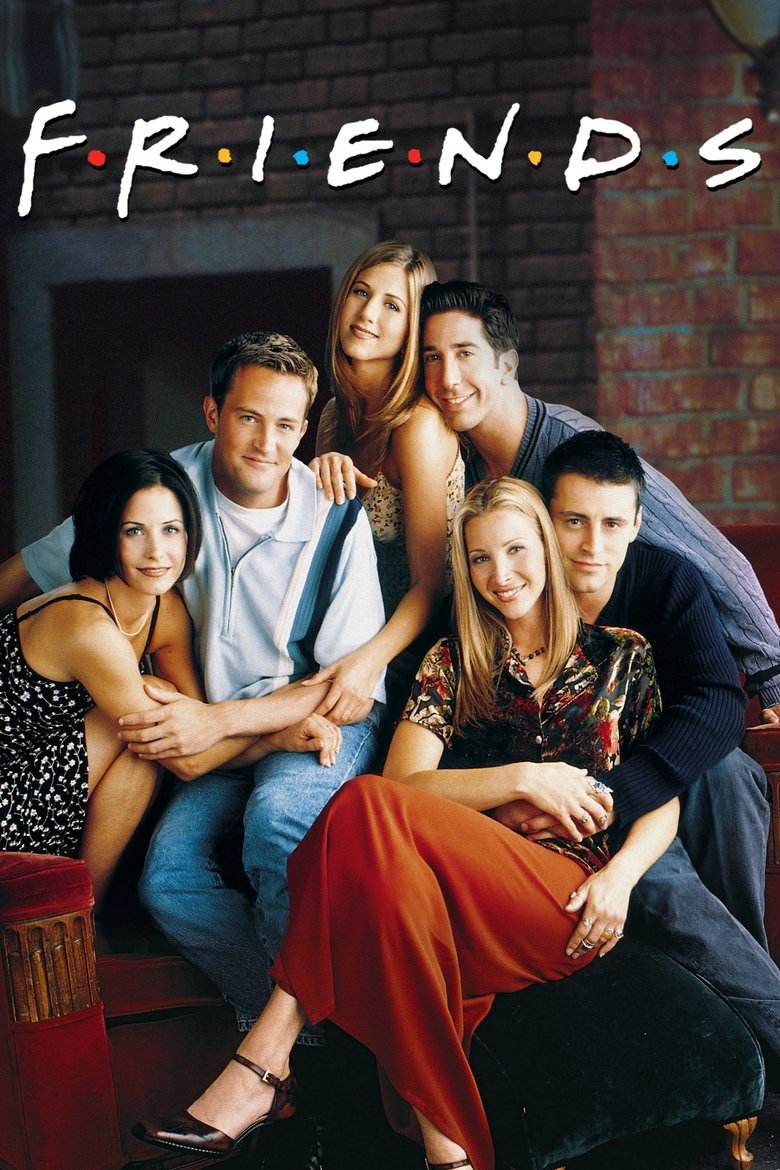
About the Friends font
Friends' logo is a friendly, spaced display. Righteous evokes that warm, retro-sitcom vibe.
What font is used in the Friends logo?+
The original Friends logo uses custom lettering. This generator recreates the look with Righteous — a free, open-license font you can style and download.